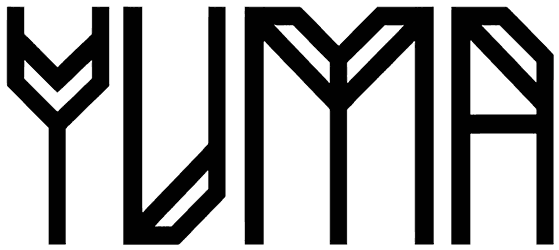
Yuma Font
For providing your typography with classic and ancient vibes, never bypass Yuma, the geometric font with some runic inspiration. This retro font that cannot conceal its quaint style comes across as making a distinct typography experience due to its aesthetic pattern.
Despite the lack of lowercase letters, it would be a notable point to focus attention on any movie titles, posters, apps, music covers, and also T-shirts.
Yuma is experimental fonts with straight glyph, inspired with typical Navajo textiles who have strong geometric patterns.
these fonts are specifically designed for display type for titles, headlines, posters, and perfect with T-shirt Designs.Buy all of Yuma Typeface styles & Commercial License at http://crtv.mk/eLJ7